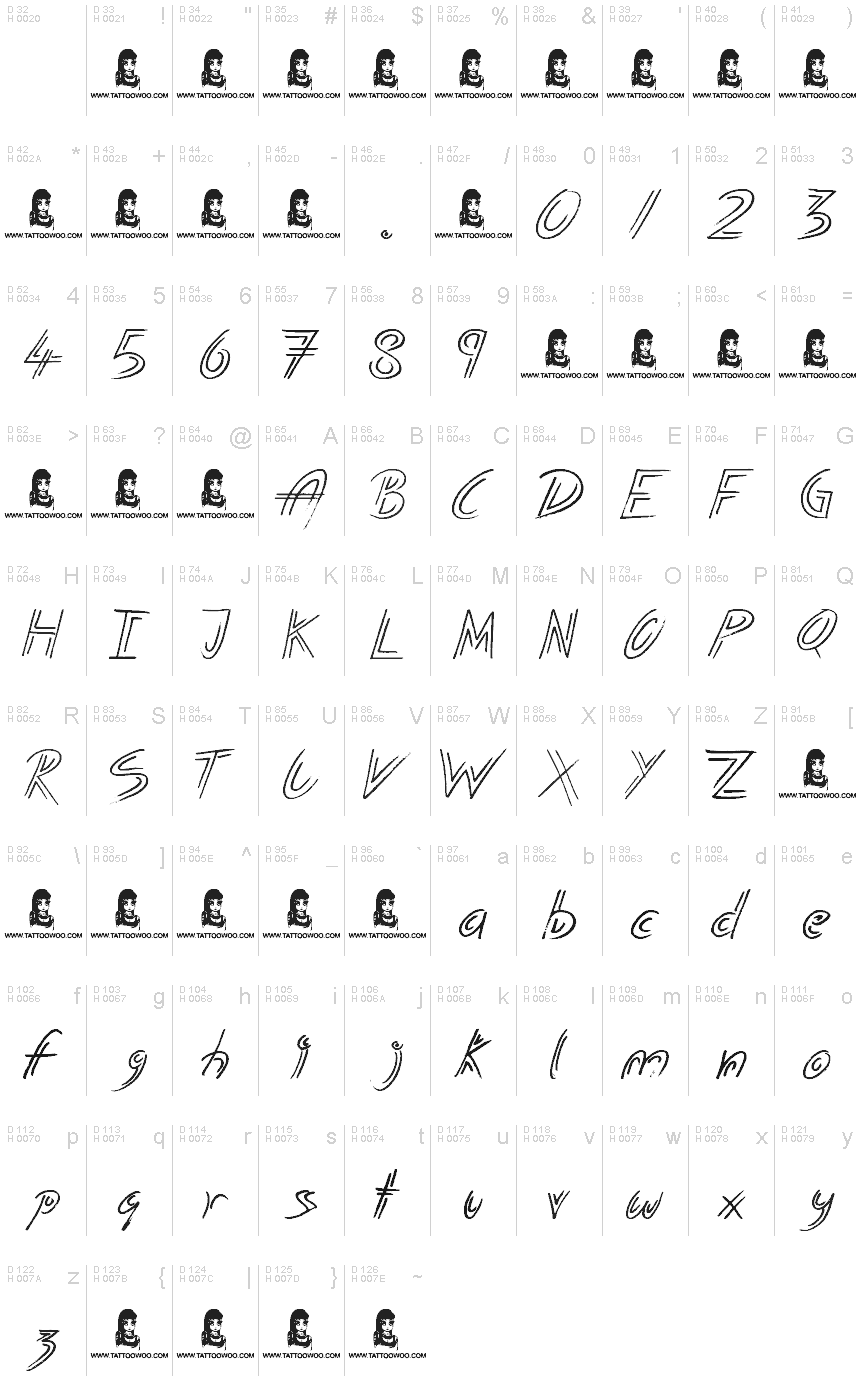
Potted Balls
Potted Balls, a handwritten gem from the creative minds at TattooWoo.com, offers a distinctive flair that combines casual elegance with a touch of whimsy. Its semi-light weight lends a delicate, airy charm to any project it graces. The playful curves and fluid strokes of Potted Balls evoke the spontaneity of ink on paper, making it an ideal choice for designs that require a personal, handcrafted feel.
This font's aesthetic appeal lies in its balance between readability and stylistic quirkiness—perfect for invitations, branding, or any creative endeavor aiming for an intimate yet professional look. Embrace the unique character of Potted Balls to infuse your next project with its unmistakably individual personality.